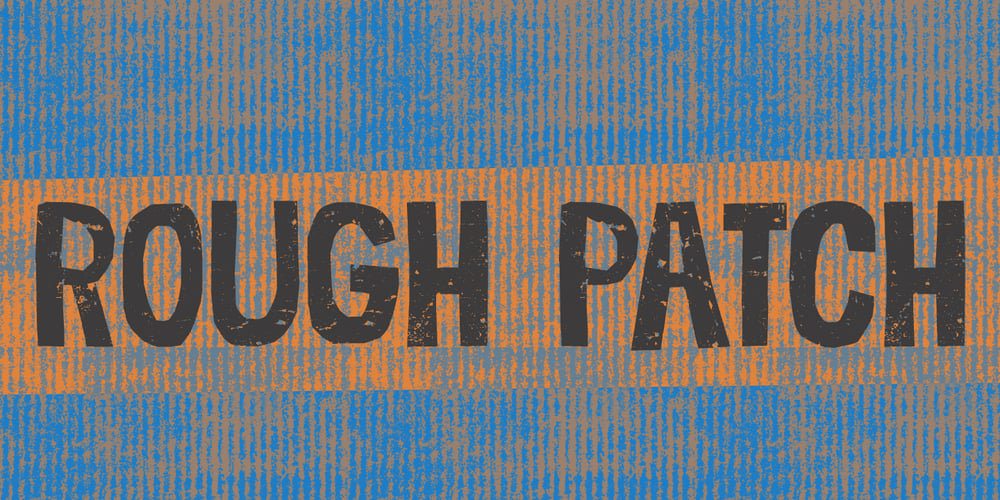
Rough Patch
Rough Patch font
Rough Patch Font Family was designed by David Kerkhoff and published by Hanoded. Rough Patch contains 1 styles and family package options. Rough Patch is a quirky, handmade display font with a serious amount of erosion. Comes with all the diacritics you need and a band aid to boot!